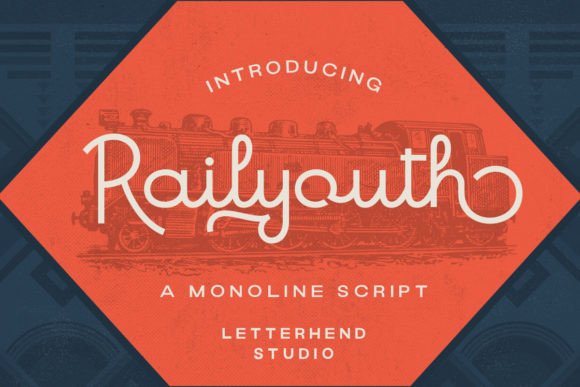
Introducing Railyouth Font: A Journey Through Time and Elegance
In a world where fonts speak louder than words, Railyouth Font emerges as a bold and captivating script, brimming with vintage charm and timeless appeal. Crafted by the skilled hands of letterhend, this monoline script embarks on a journey of nostalgia, beckoning you to explore the depths of creativity and self-expression.
With its sweeping curves, dynamic strokes, and distinct character, Railyouth Font evokes a sense of adventure, wanderlust, and the thrill of discovery. Inspired by the golden age of travel and exploration, this font captures the essence of distant lands, forgotten treasures, and untold stories waiting to be unveiled.
Step into a world of elegance and sophistication as Railyouth Font graces your designs with a touch of class and refinement. Its versatility knows no bounds, effortlessly adapting to a myriad of creative endeavors, from heartfelt wedding invitations and personalized thank you cards to eye-catching logos and captivating greeting cards.
Unleash your inner artist and let Railyouth Font guide you through a world of endless possibilities. Whether you're a seasoned designer seeking a unique and expressive font or a creative enthusiast yearning to add a personal touch to your projects, this script will ignite your imagination and transform your designs into captivating masterpieces.
Embark on a journey of creativity and self-expression with Railyouth Font, the ultimate companion for adventurers, dreamers, and those who dare to embrace the beauty of the past. Let its enchanting strokes transport you to a world of wonder and possibility, where your designs take center stage and leave an indelible mark on the hearts of your audience.